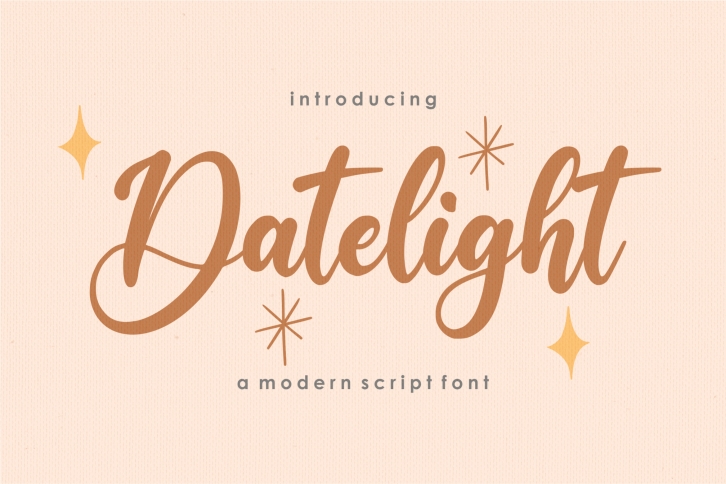
Proudly Present, Datelight
Datelight a Modern Handwritten Font
Datelight is perfect for product packaging, branding project, megazine, social media, wedding, or just used to express words above the background.